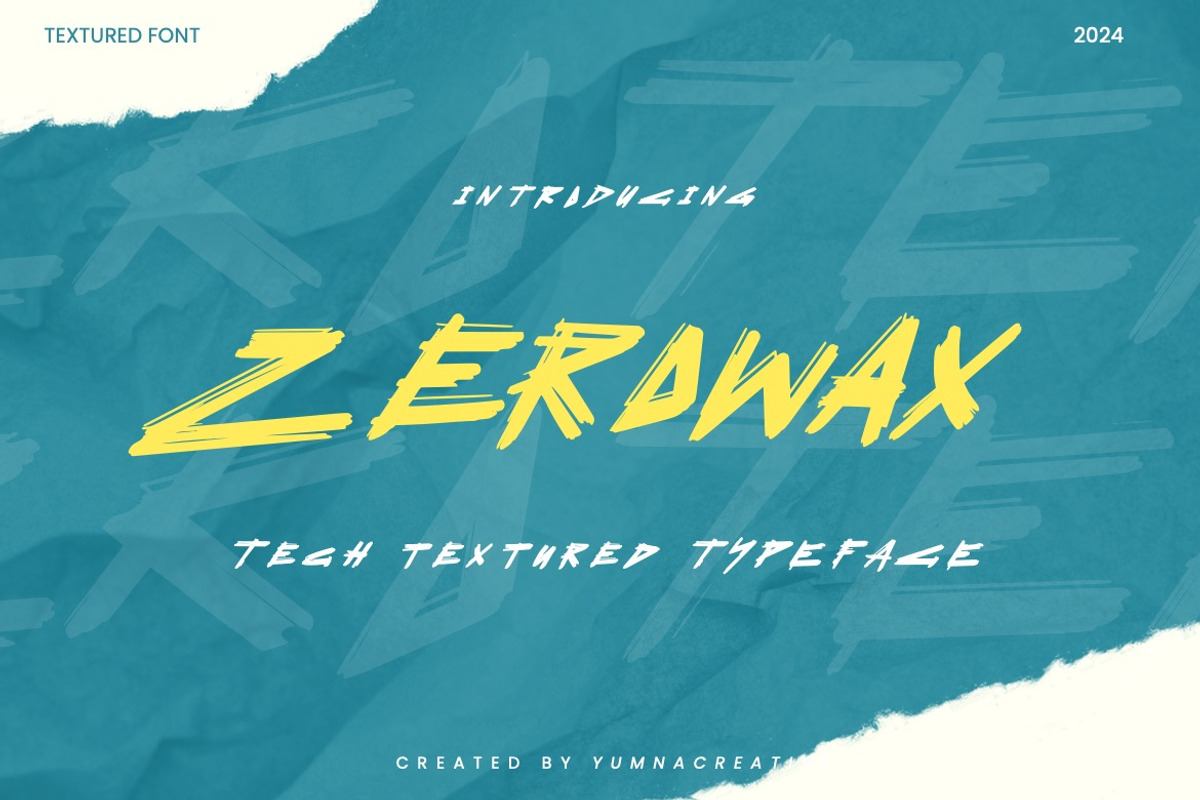
Zerowax - Tech Textured Font Free Download is a futuristic, tech-inspired typeface with a textured, industrial feel. Perfect for digital designs, tech branding, gaming graphics, website headers, and sci-fi projects, Zerowax brings a modern, gritty look to your typography. The font features unique, rough edges and a bold structure that make it stand out in both large headlines and smaller body text.
Zerowax adds a high-tech, cutting-edge vibe to any design, making it ideal for projects that want to evoke innovation, technology, or modernity.